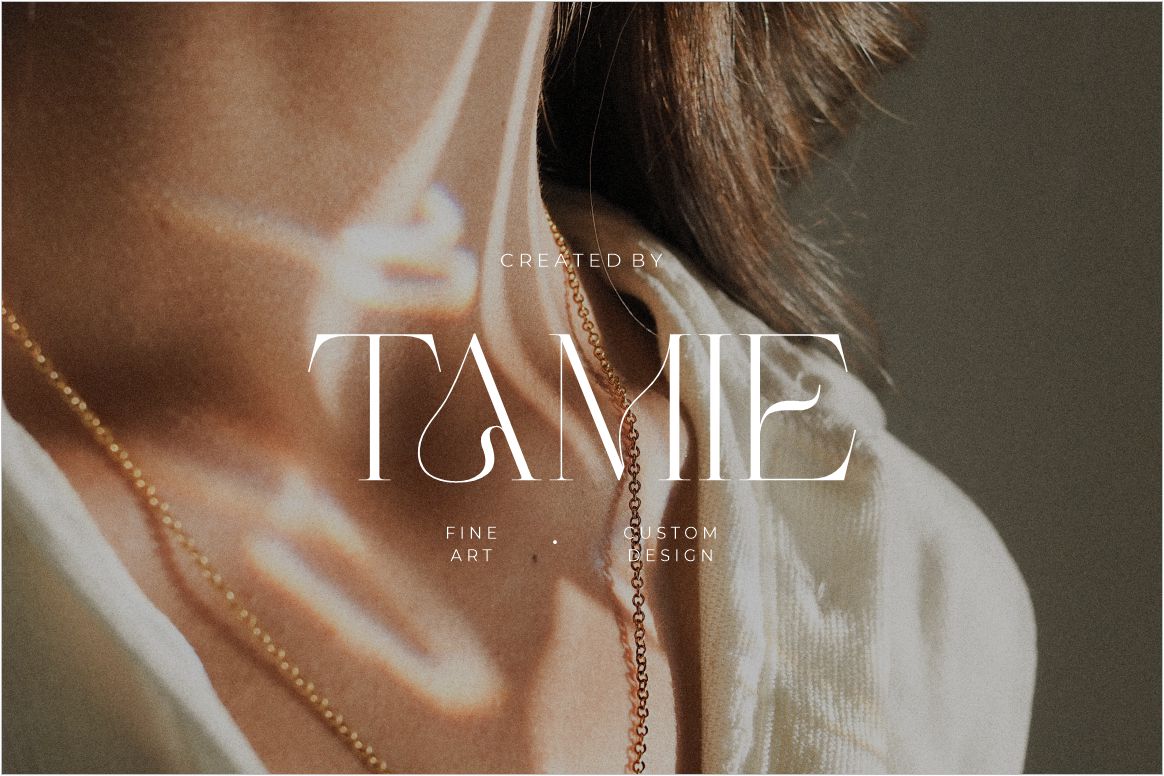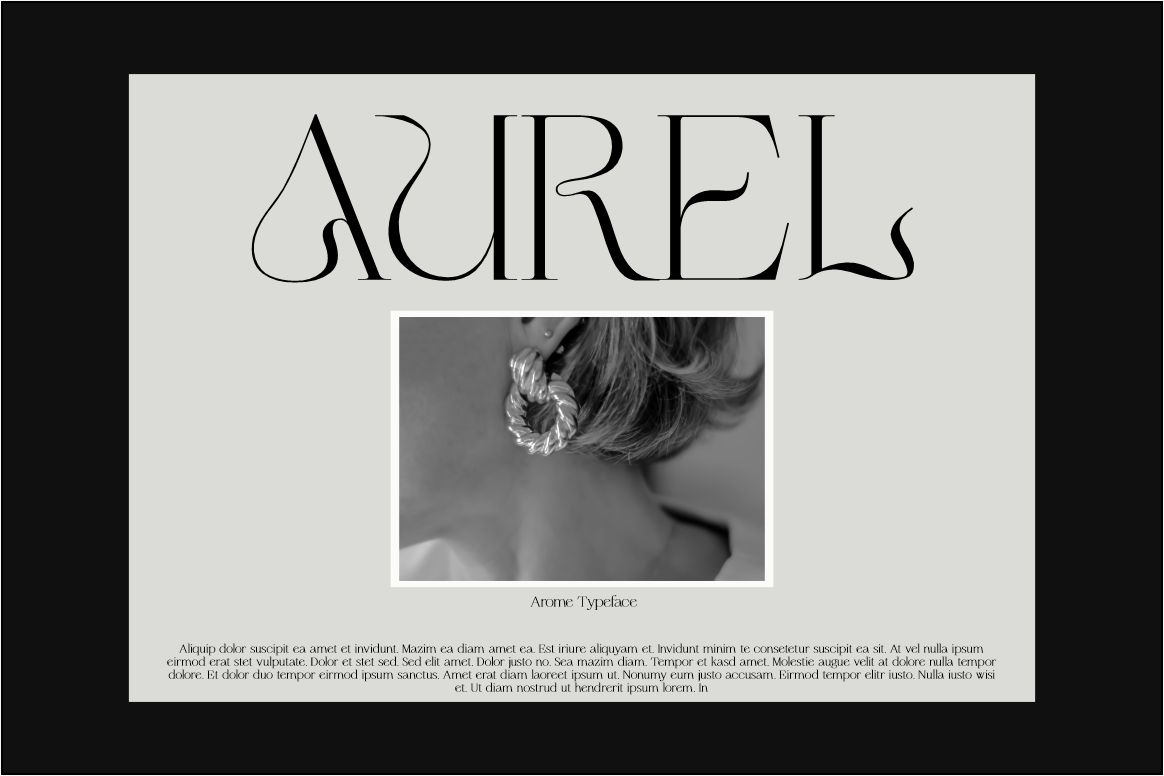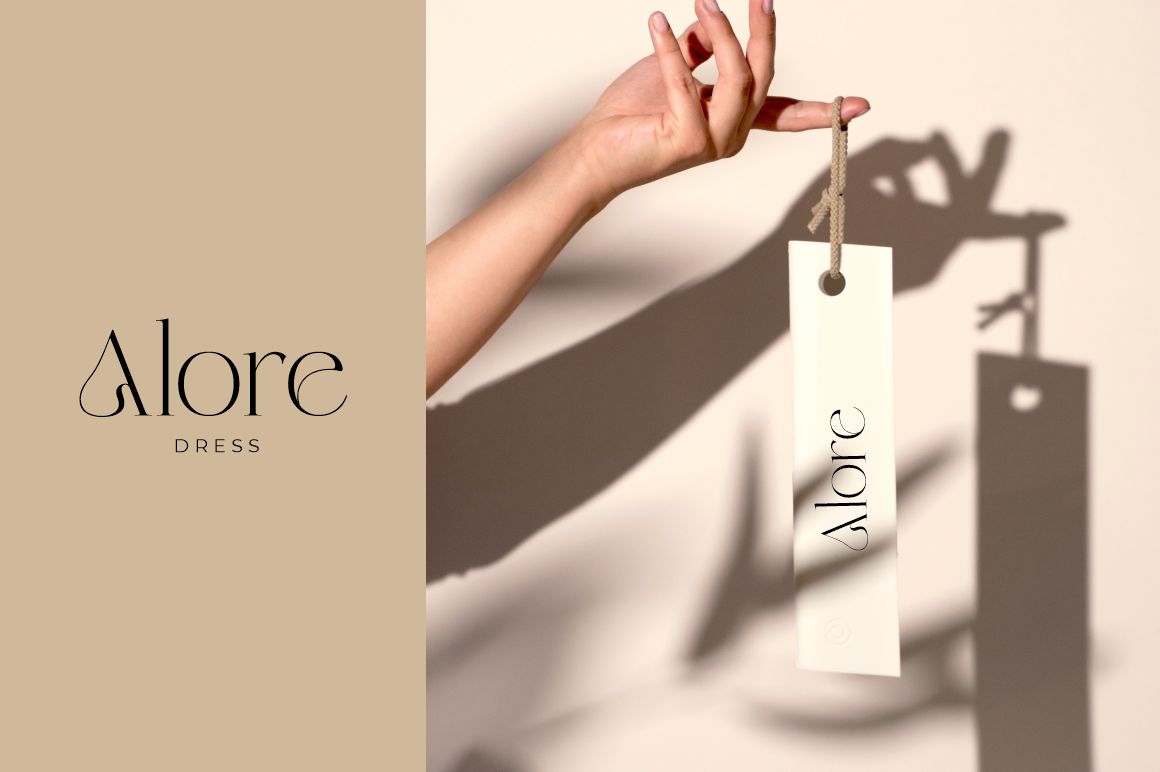
Arome Serif Font – It is the new serif display typeface that will bring in your projects a touch of luxury and style. Arome Typeface is well-suited for advertising, layout design for quotes or body copy, best used as a display for headings, logos, branding, magazines, product packaging, invitations. logotypes, editorial design and much more.